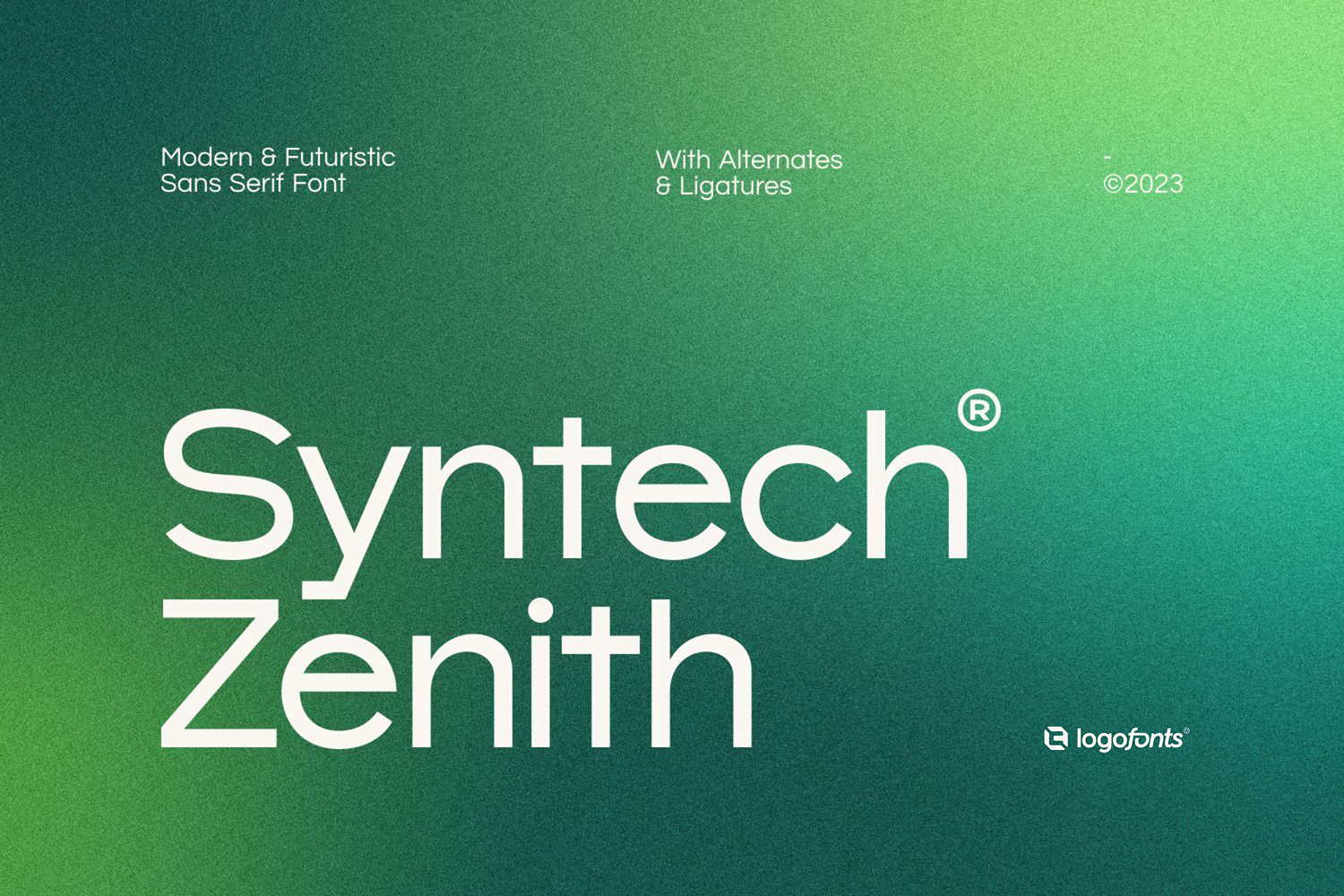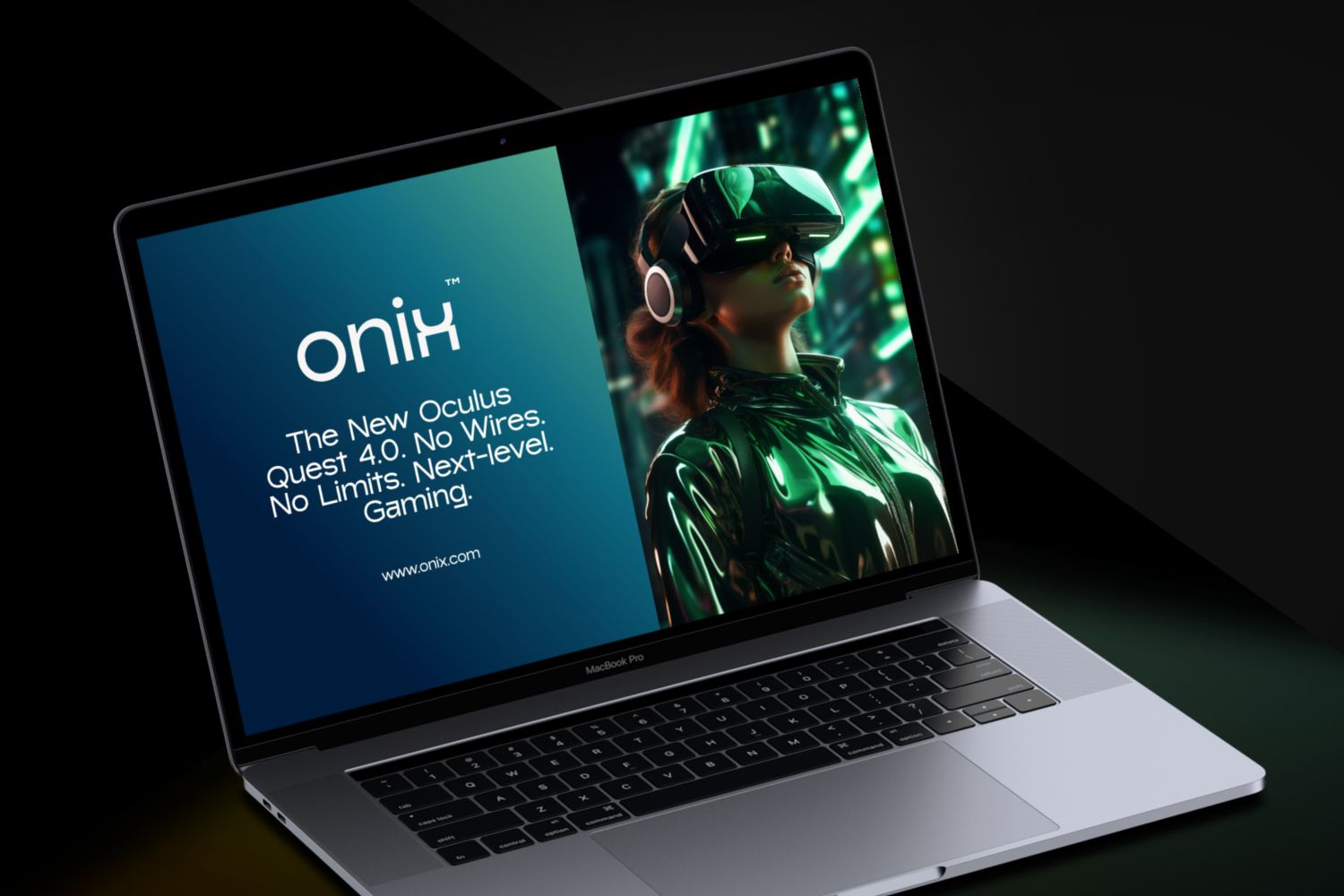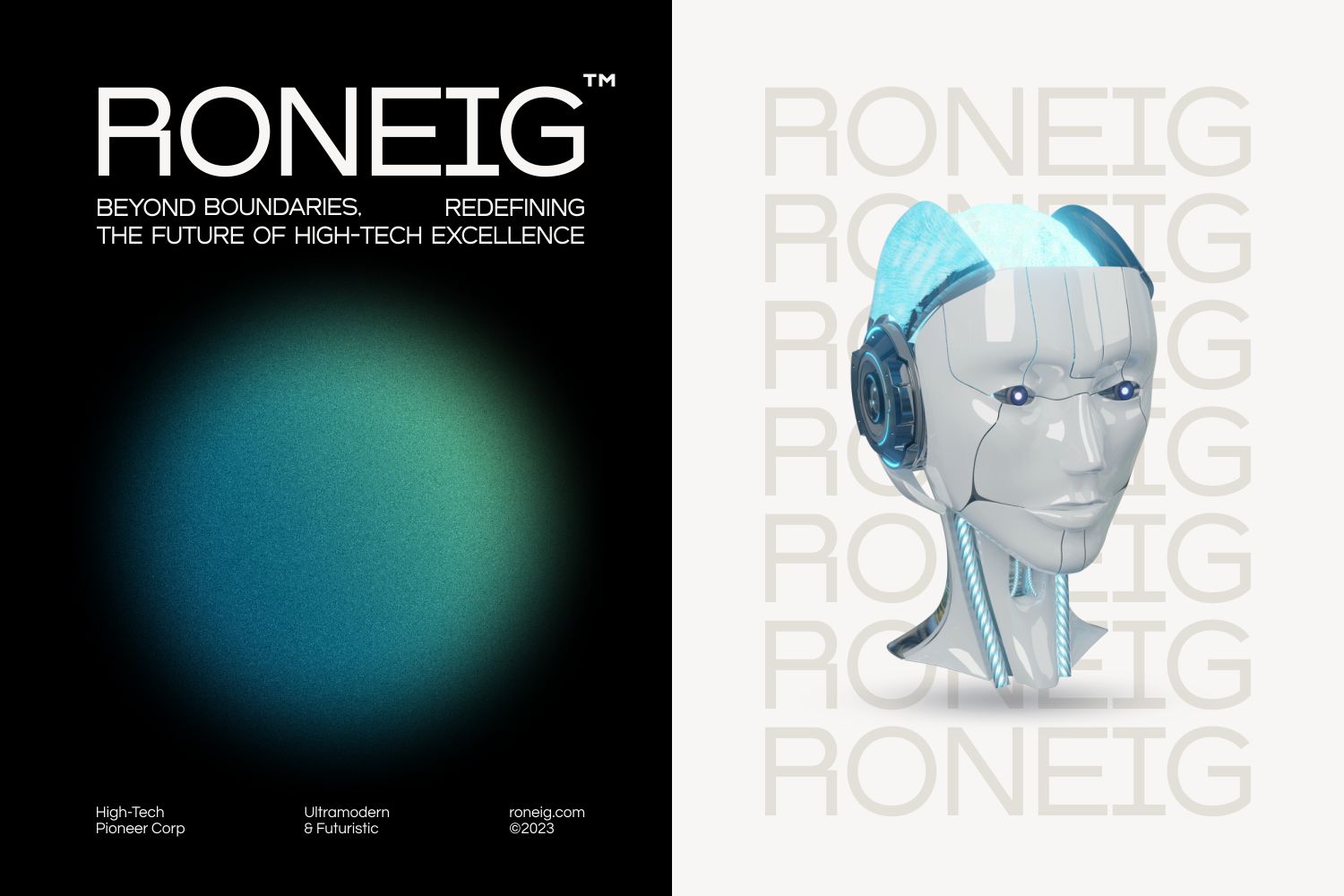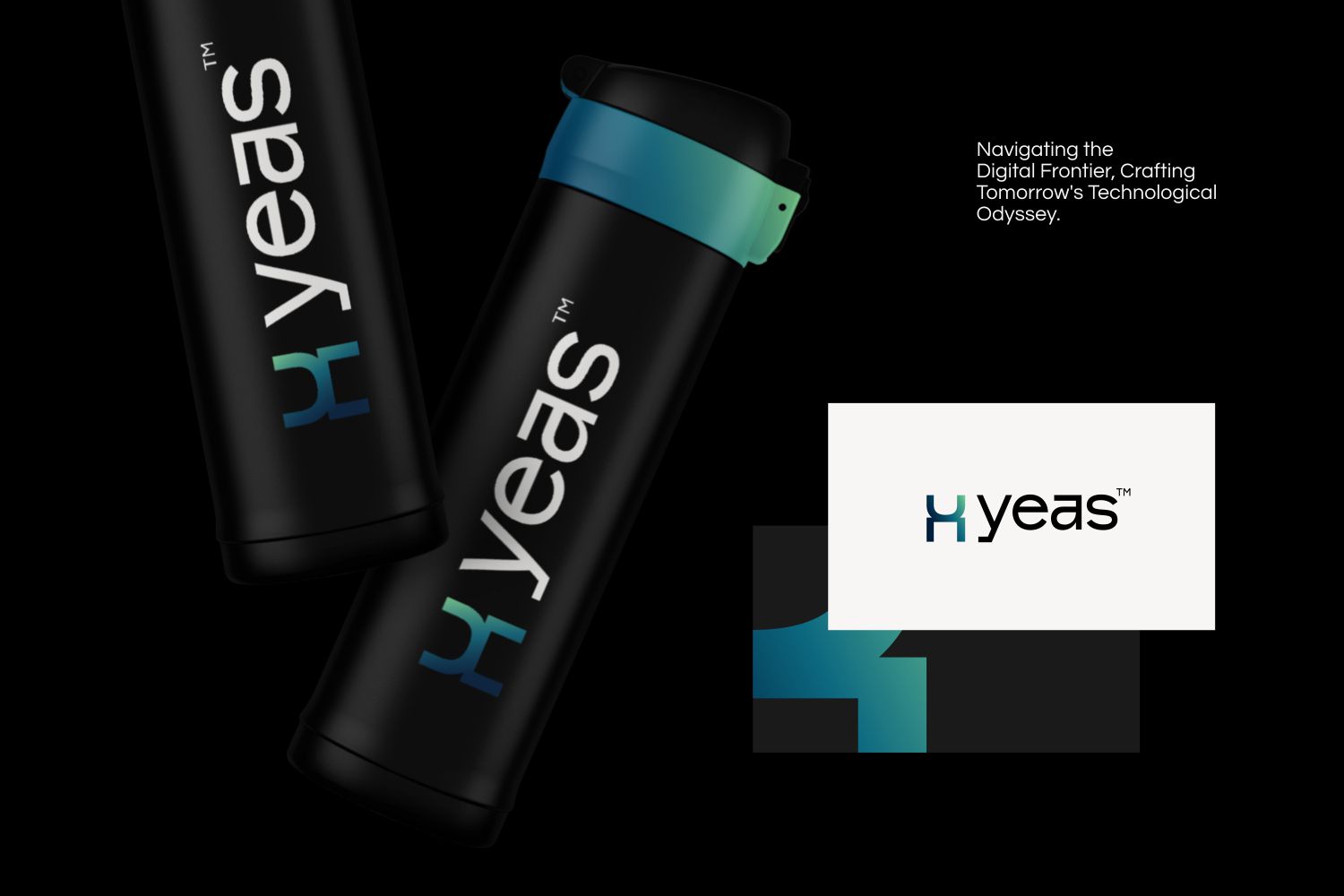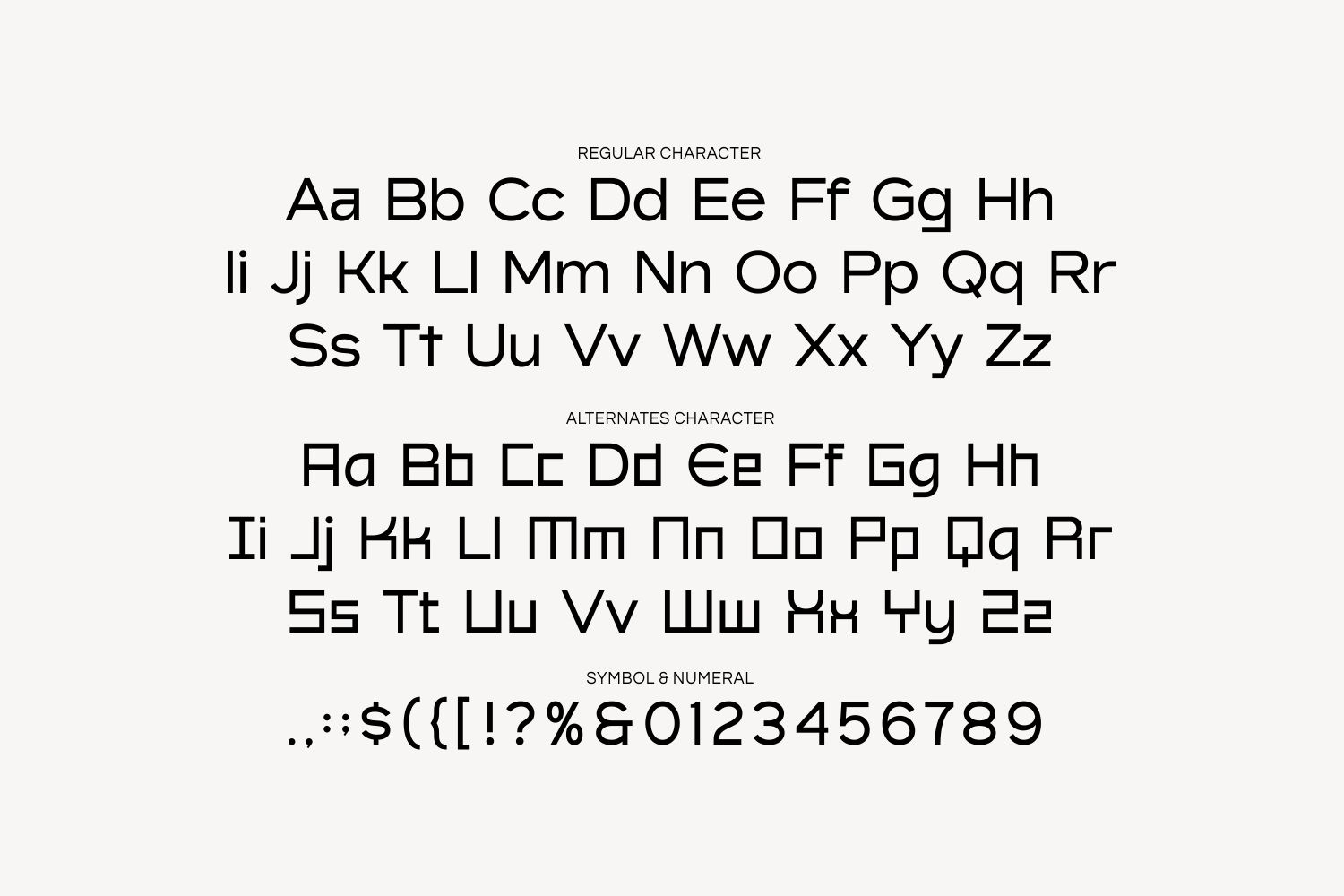
Syntech Zenith is a modern sans serif font with a sleek futuristic aesthetic, designed to reflect innovation and advanced technology. Its clean lines and minimalistic form make it ideal for digital interfaces, tech startups, and forward-thinking brand identities. The typeface features both regular and alternate characters that bring a geometric, almost robotic feel — perfect for brands that want to appear smart, modern, and cutting-edge.
With its balanced proportions and strong legibility, Syntech Zenith works beautifully in both headline and body applications. Whether used in UI design, posters, product packaging, or virtual branding environments, this font delivers a professional yet visionary look. The addition of stylistic alternates and ligatures adds creative flexibility to help designers craft distinct, tech-savvy layouts.